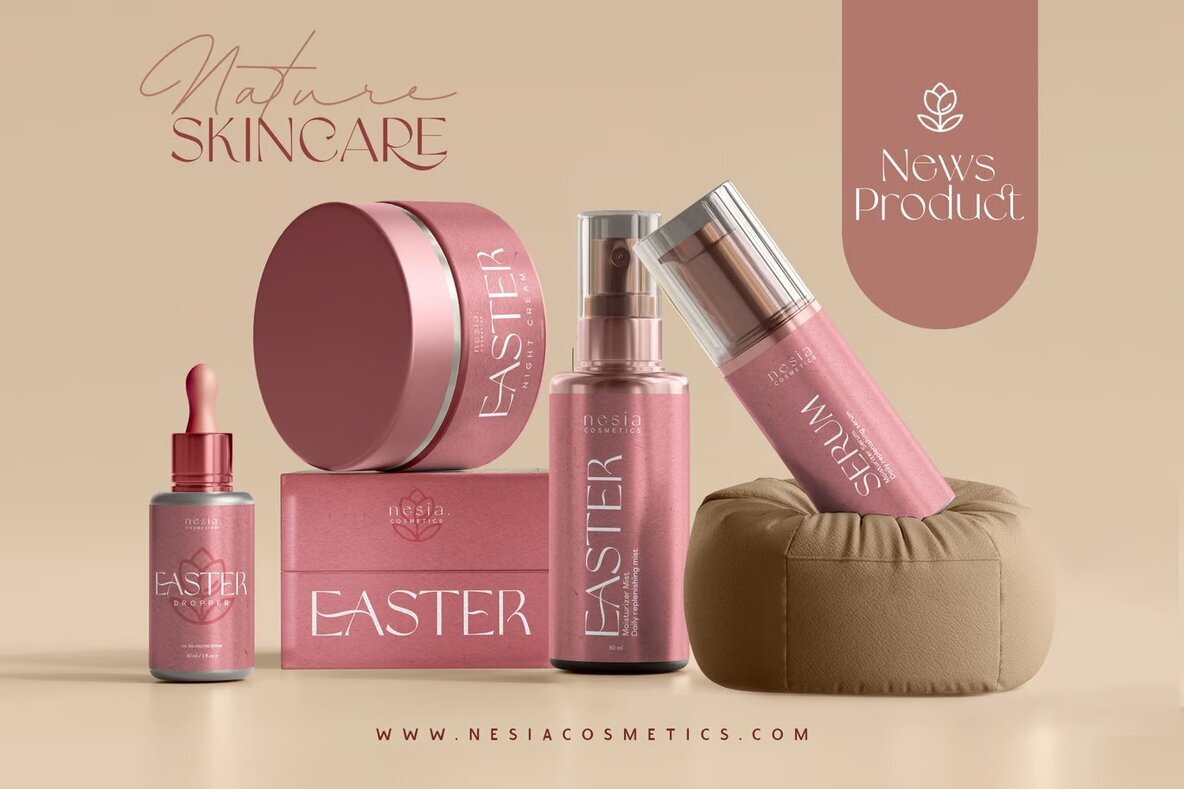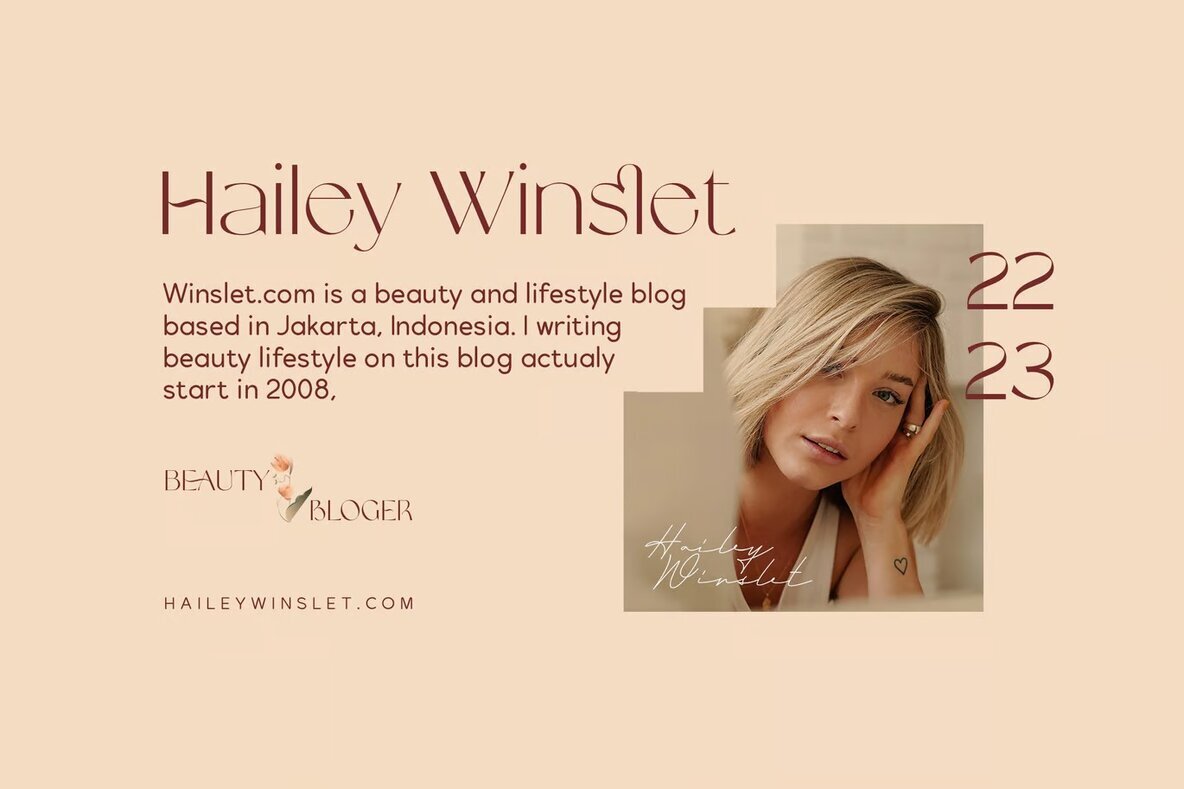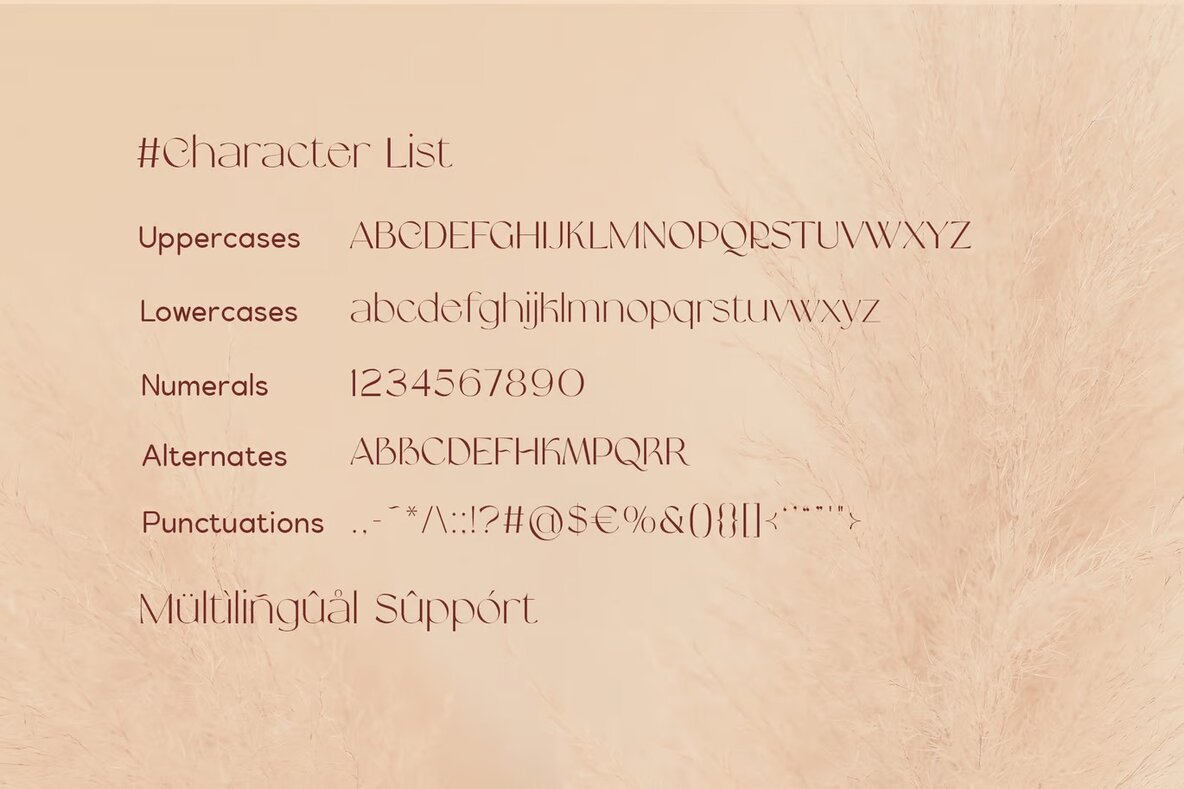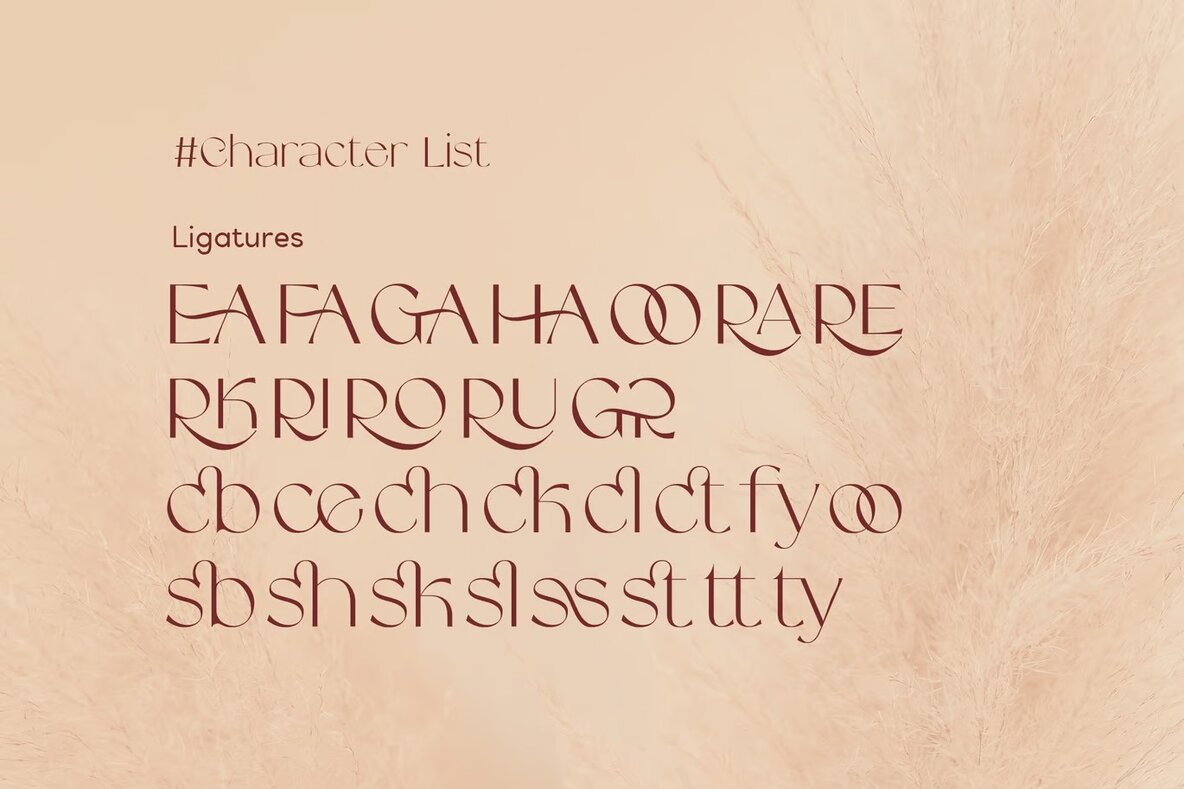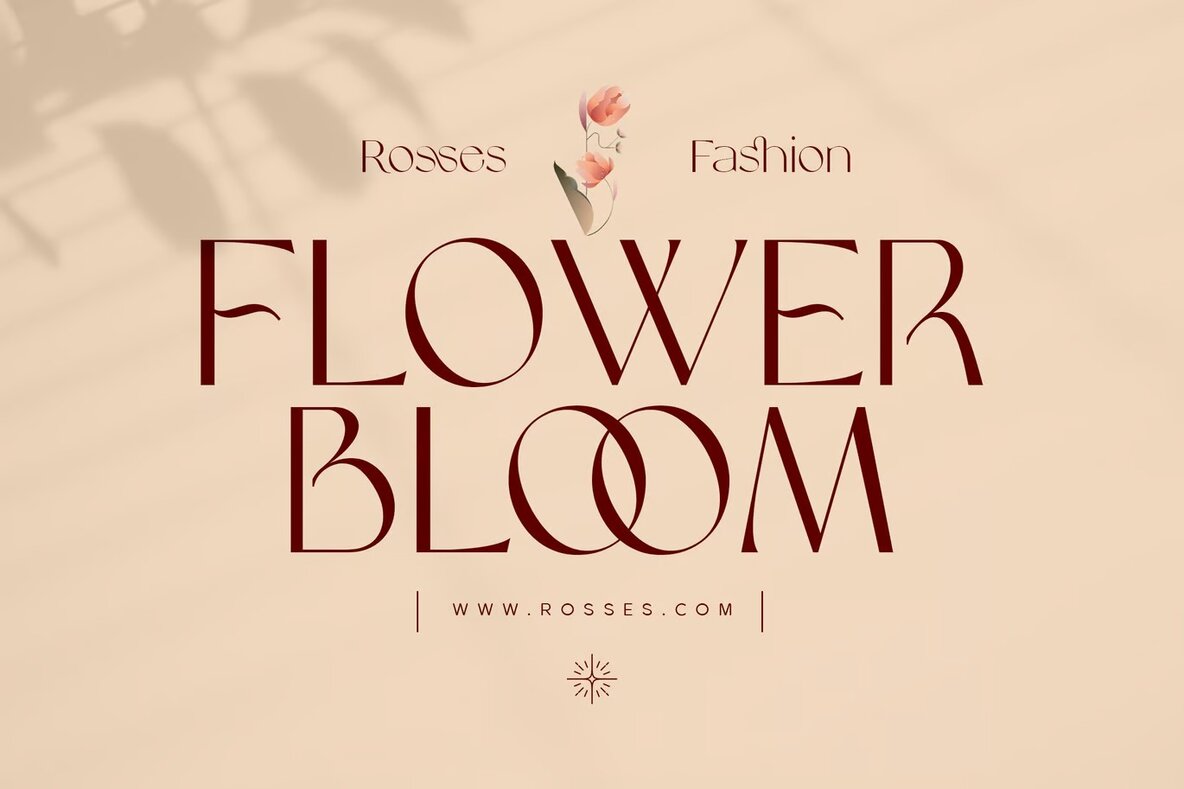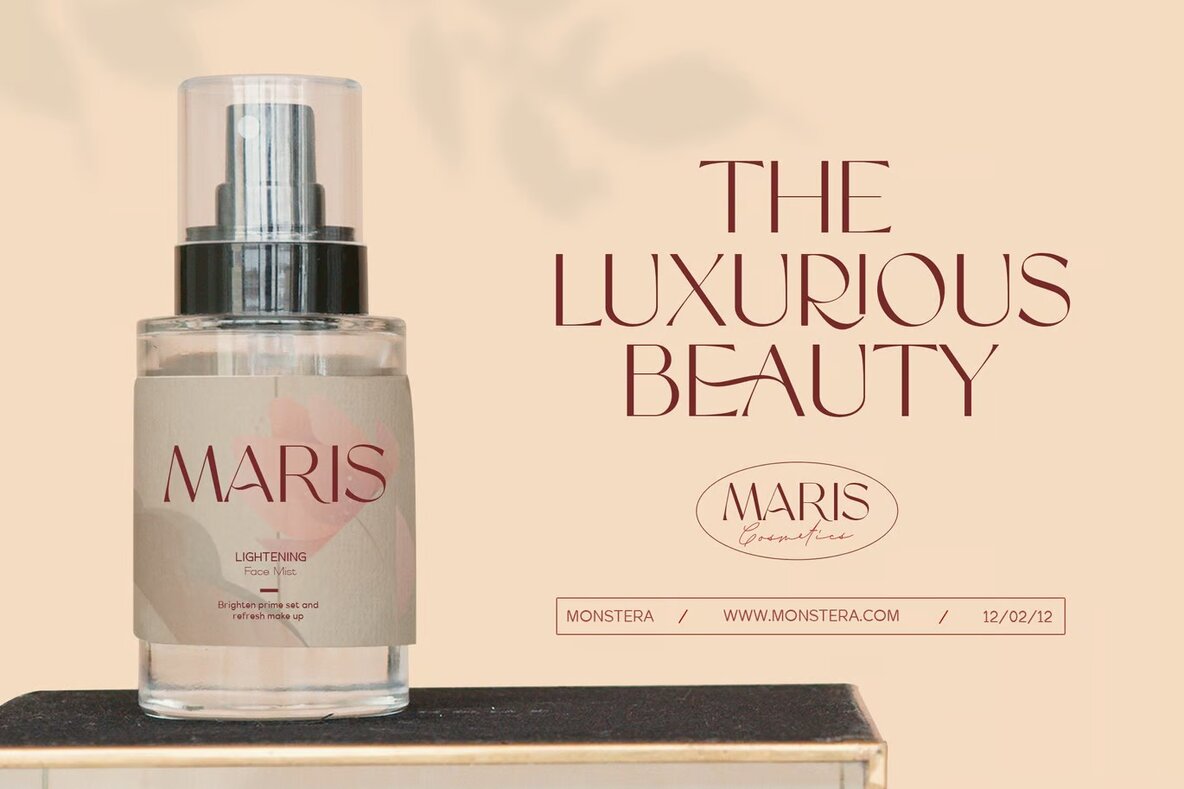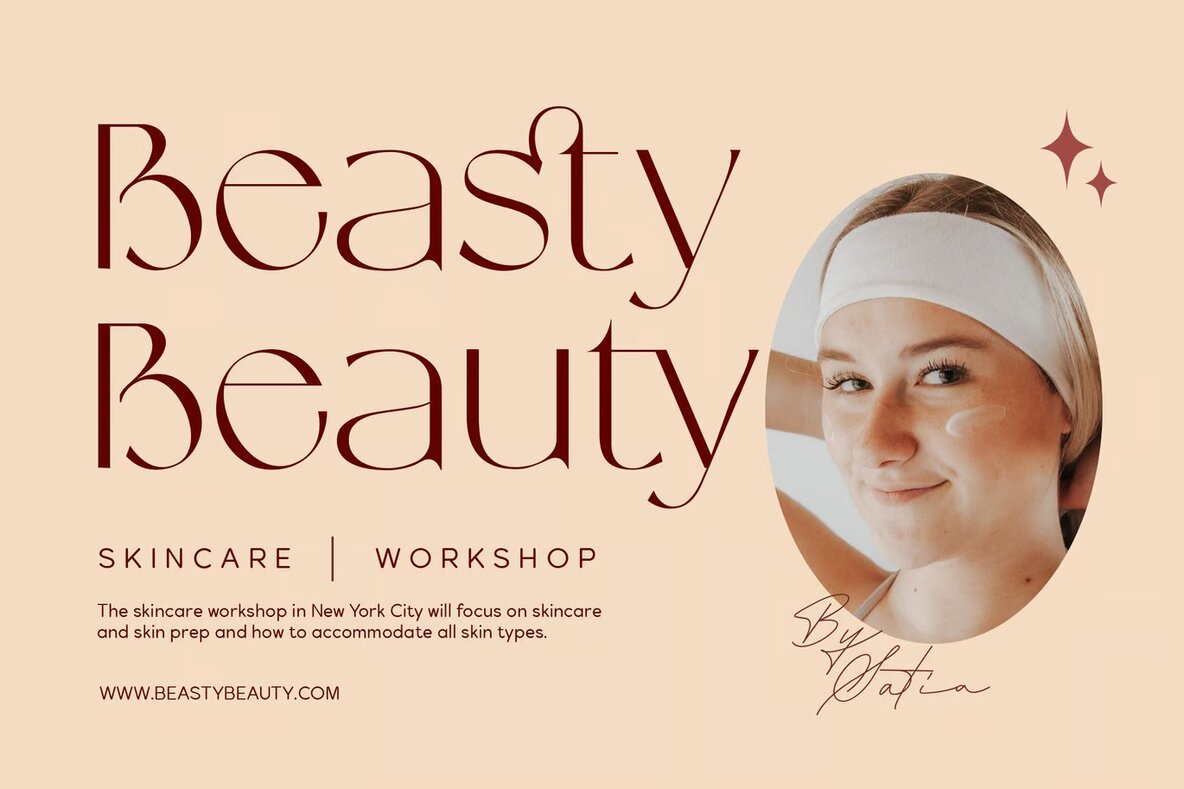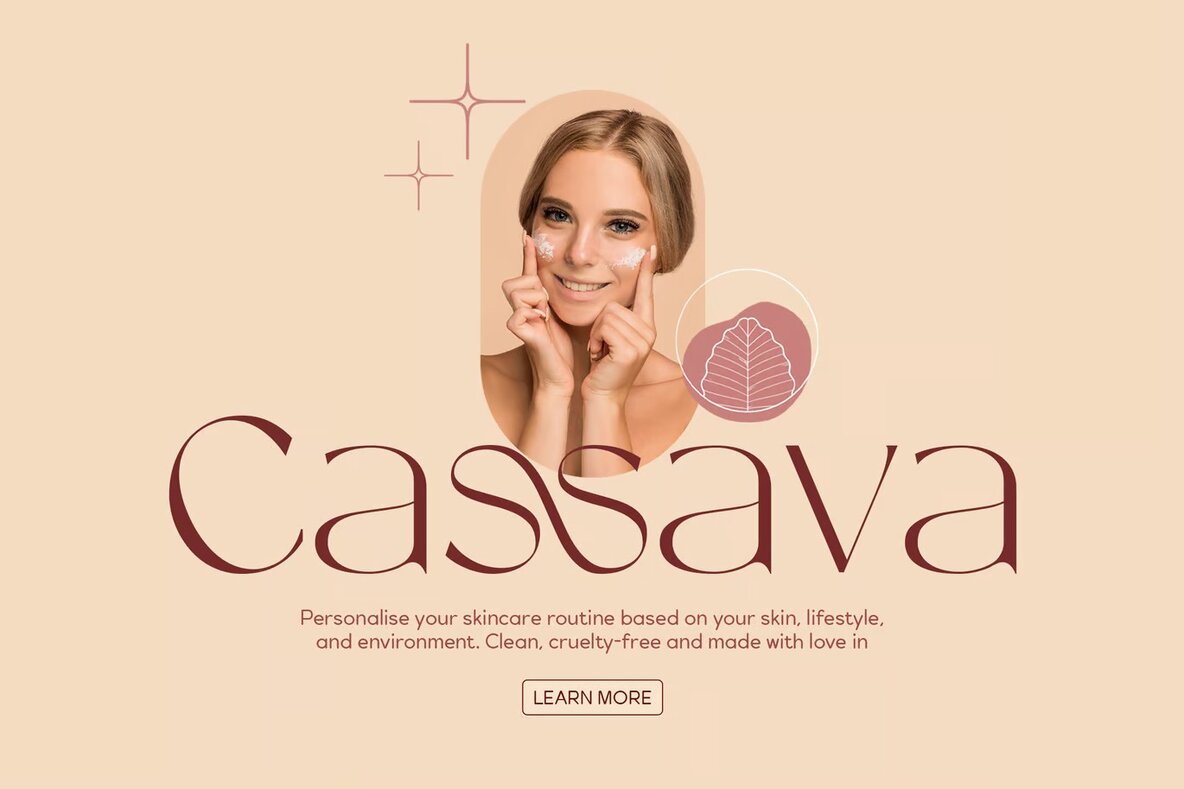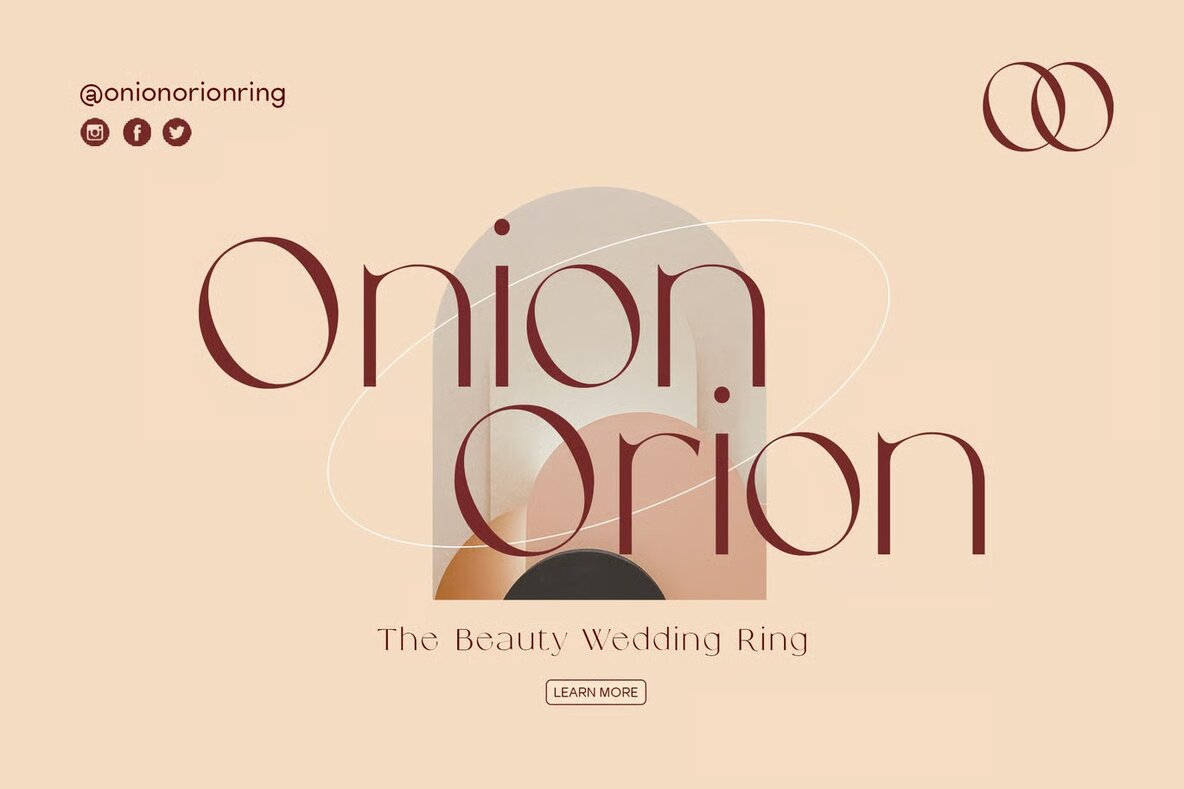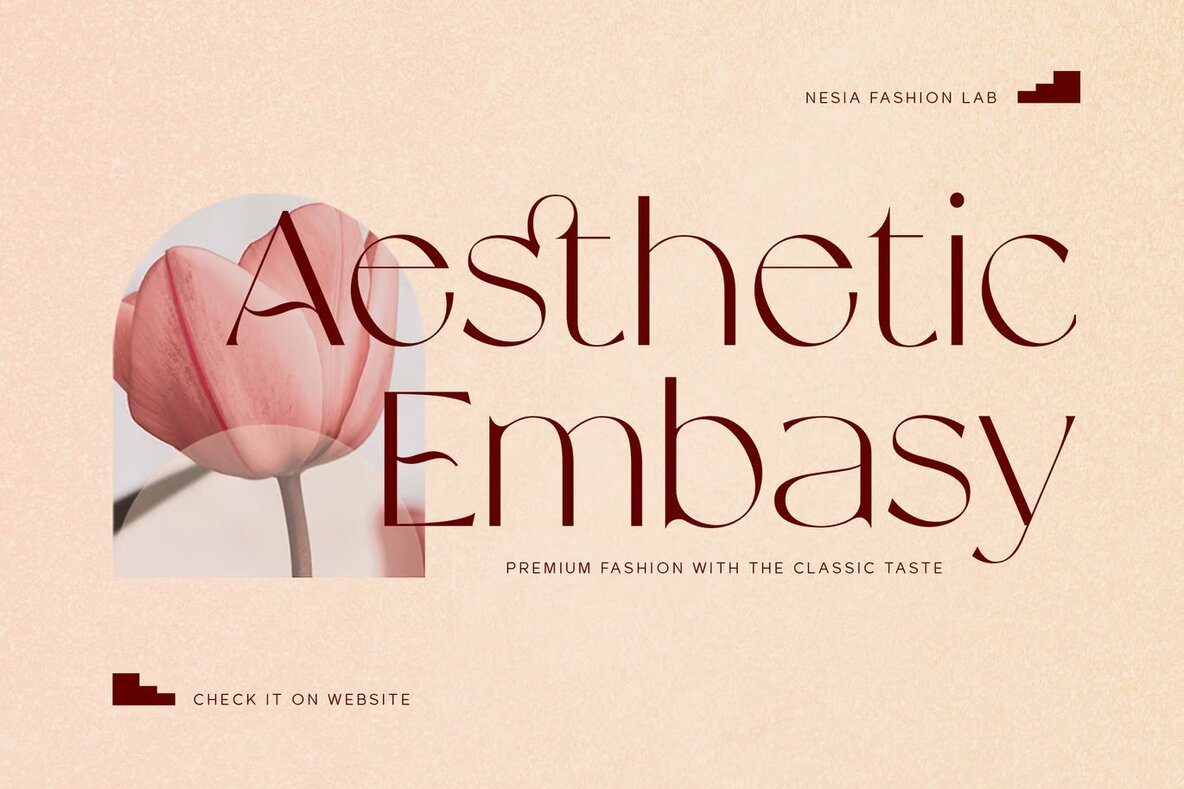
Hand Cream Font
Hand Cream Regular
Hand Cream Sans Serif: Modern Elegance for Your Creative Projects
Hand Cream Sans Serif offers expressive romantic and feminine aesthetics, making it an ideal choice for luxurious branding and modern design projects. With a variety of alternates and ligatures, this font allows for customization to create unique and sophisticated typography. Perfect for high-end logo creation, editorial design, and fashion promotional materials, its versatility ensures it will enhance the visual appeal of your work. Whether used in cosmetic branding, art gallery promotions, or elegant stationery design, Hand Cream's refined style will captivate your audience.
This sans-serif font is also well-suited for museum exhibits, historically influenced architectural projects, and chic boutique branding. Its adaptability extends to stylish blog designs, modern advertising, and eloquent card invitations. Use it to add an artistic touch to home decor, book covers, special event materials, and more. Hand Cream Sans Serif provides a timeless and classy look that complements any creative endeavor, making it an invaluable asset for designers looking to infuse their projects with a touch of elegance.